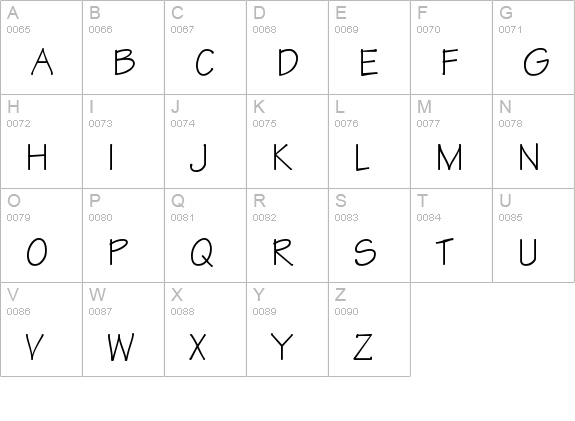
Tekton Regular Font Details
Tekton Regular is the standard, neutral variant in the Tekton typeface family \xE2\x80\x94 well suited to general body text, paragraphs, and standard typographic work.
Tekton Regular font is a versatile and stylish typeface that exudes a sense of confidence and professionalism. With its clean lines and distinctive letterforms, this font is perfect for a wide range of design projects, from corporate branding to editorial layouts. The beauty of Tekton Regular lies in its simplicity. The balanced proportions and subtle curves create an elegant and timeless look, making it suitable for both print and digital applications. Whether used for headlines, body text, or logo design, this font will bring a touch of sophistication to any project. One of the standout features of Tekton Regular is its versatility. It can effortlessly adapt to various design styles and themes, adding an element of visual interest without overpowering the overall composition. Its legibility and clarity make it an excellent choice for conveying information effectively, ensuring that your message is easily understood by your audience. What sets Tekton Regular apart is not just its visual appeal, but also the fact that it is available for free download at FontsMarket.com. This means that you can access this exceptional font without any cost, making it an excellent resource for both professional designers and hobbyists alike. Whether you're a seasoned graphic designer looking to enhance your typography collection or a beginner exploring the world of design, Tekton Regular font is a must-have. Its versatility, elegance, and accessibility make it the perfect addition to any project. So why wait? Download Tekton Regular today from FontsMarket.com and elevate your designs to new heights.